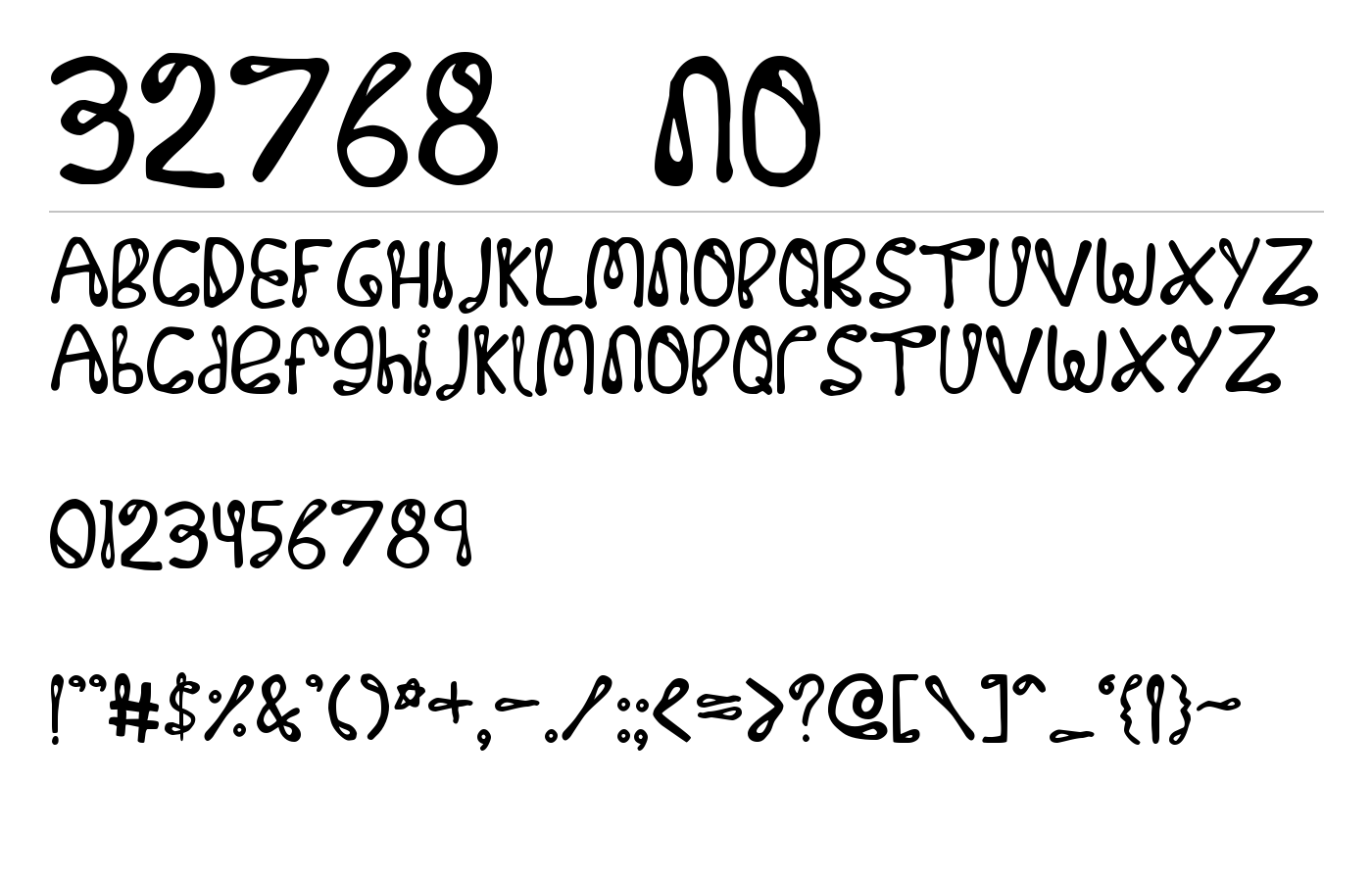
32768 NO Font is a playful, hand-drawn sans serif typeface with a casual and quirky personality. Its irregular strokes and whimsical letterforms create a friendly and approachable feel, making it ideal for creative, fun, and informal design projects like children's books, posters, or unique branding that aims to stand out with a personal touch. This font works best in headlines or short text where its distinctive character can shine without sacrificing readability.
32768 NO Font
About 32768 NO Font
| Font family | 32768 NO Font |
| Designer | Tom Murphy 7 |